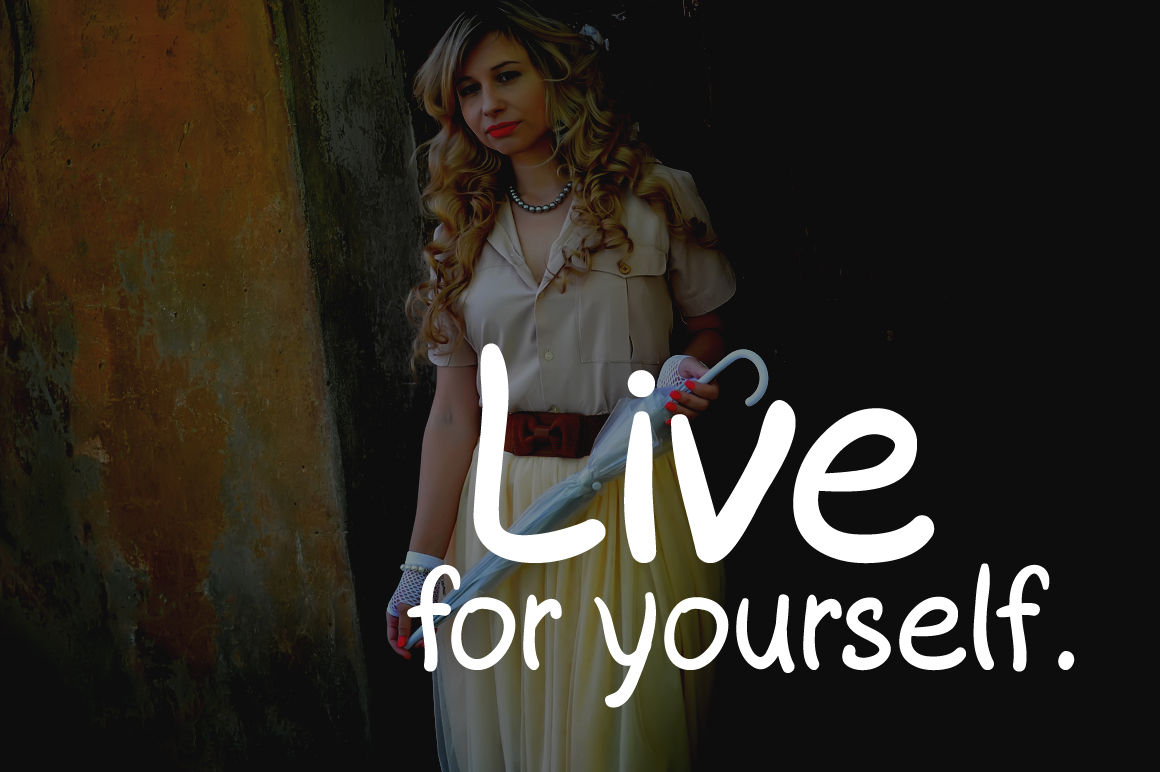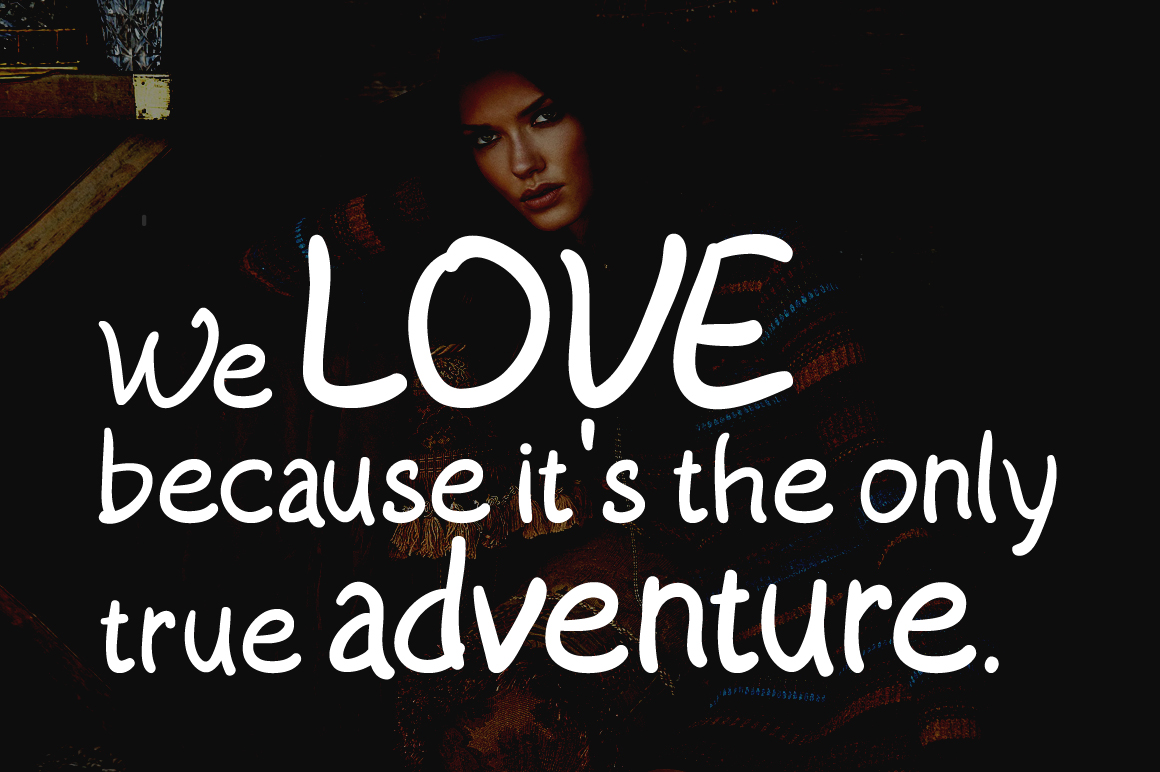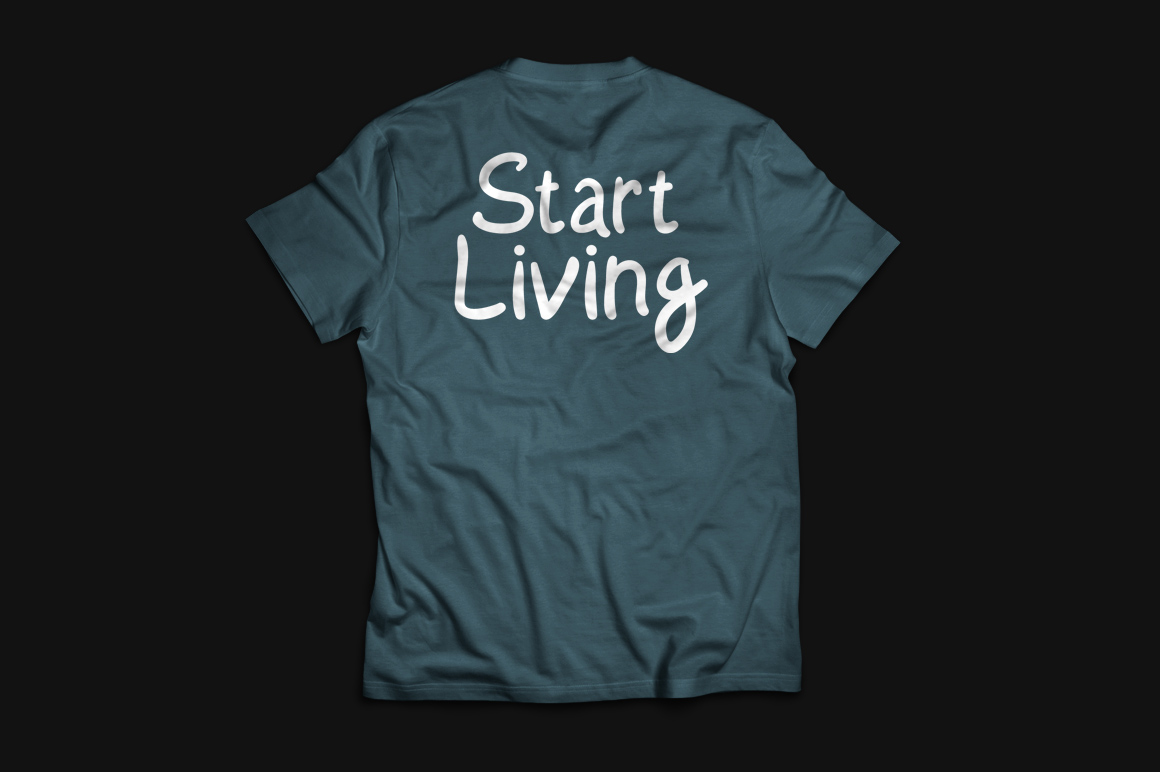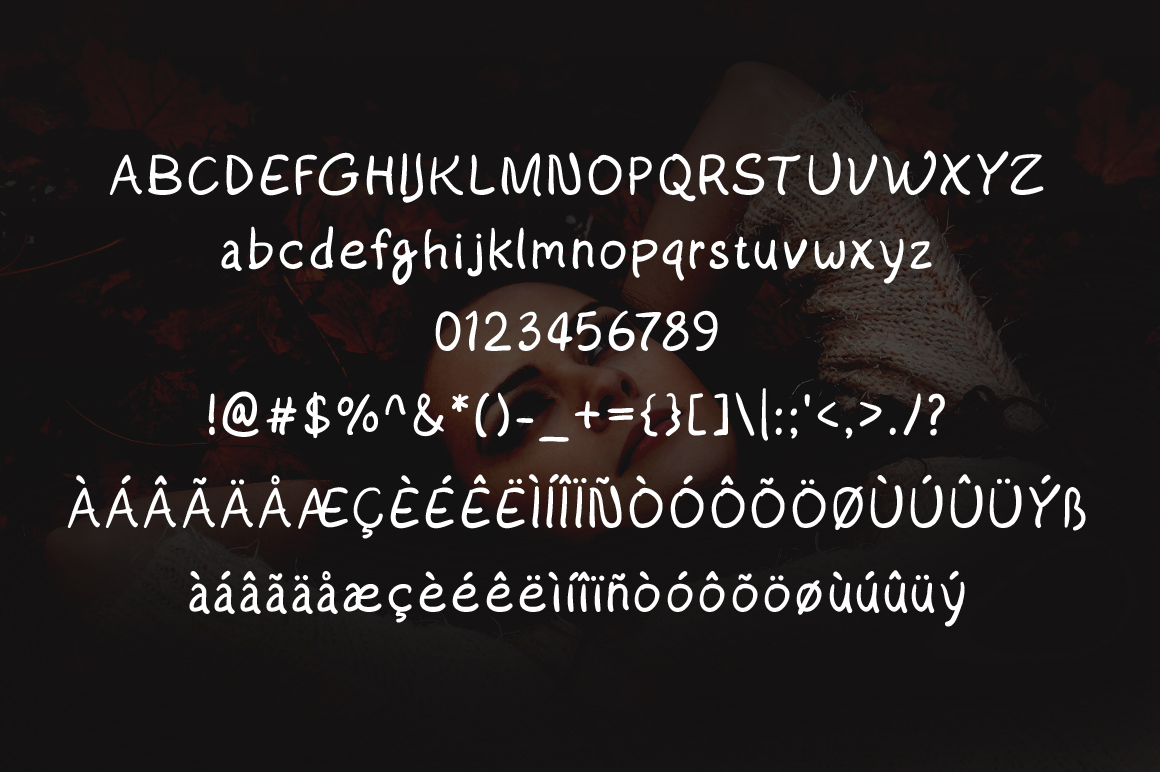
Start Living Font
About Start Living Font
Start Living is a brand new handwritten font. This font is easy to read, bold, and made with a clean and unfussy approach. This font is perfect for displays and can enhance your designs.